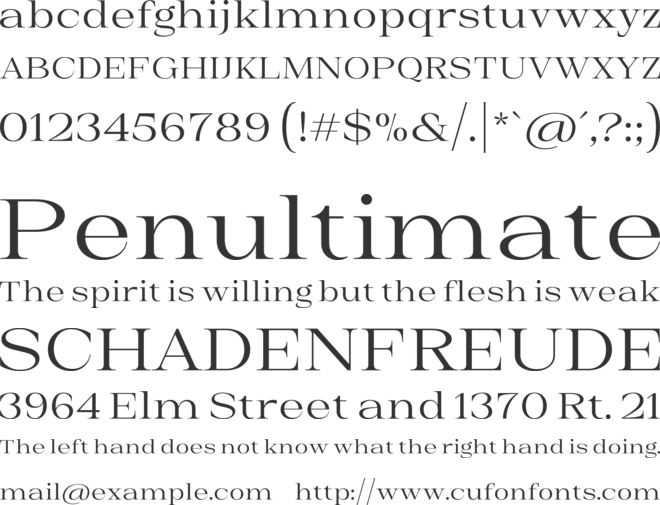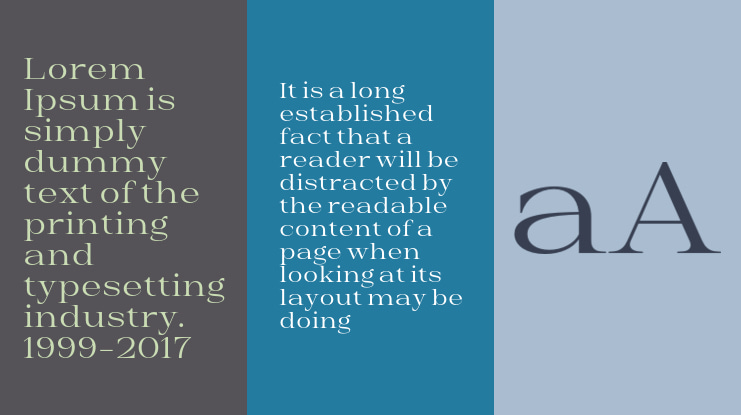
Auralic Font Family
Auralic is a modern editorial serif that combines timeless elegance with contemporary flexibility. Designed with three powerful axes of expression—Weight, Contrast, and Slant—it allows designers to seamlessly adapt the typeface across a wide spectrum of styles. From delicate, refined thin weights to bold, high-contrast expressions, Auralic provides a complete typographic voice that can shift gracefully between moods and applications. Crafted for both display and text, Auralic balances sharp details with smooth curves, creating a sophisticated rhythm on the page. Its versatility makes it perfect for editorial design, luxury branding, fashion campaigns, book layouts, and digital experiences where both refinement and adaptability are essential. With extended Latin support and a wide range of styles, Auralic is more than just a typeface—it is a design system that empowers creativity, offering elegance, clarity, and expressive range for any project.